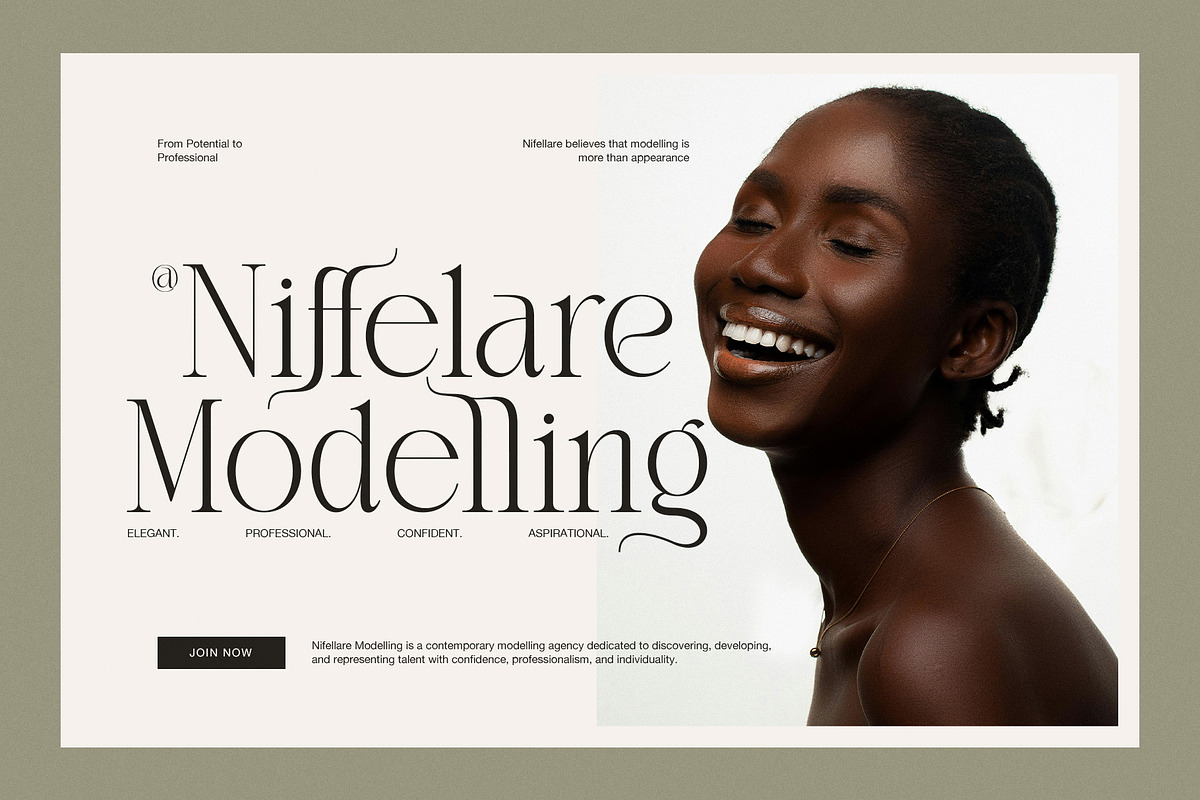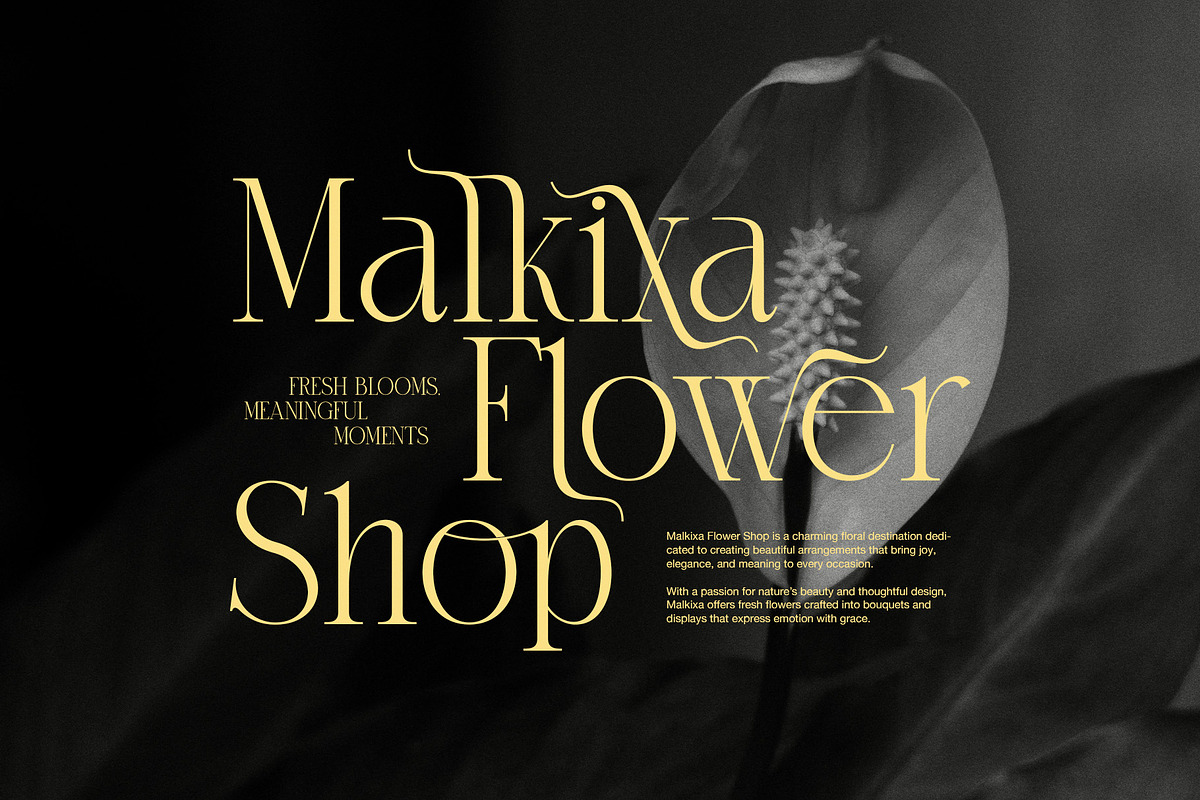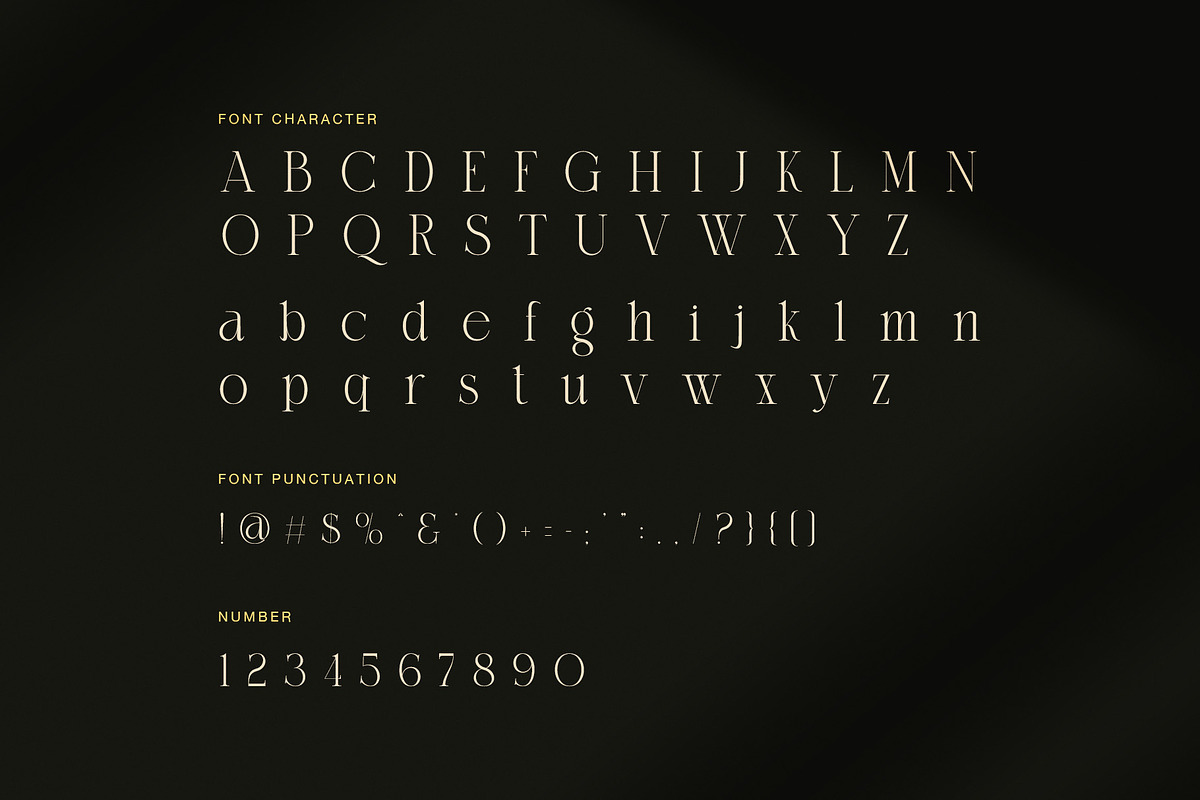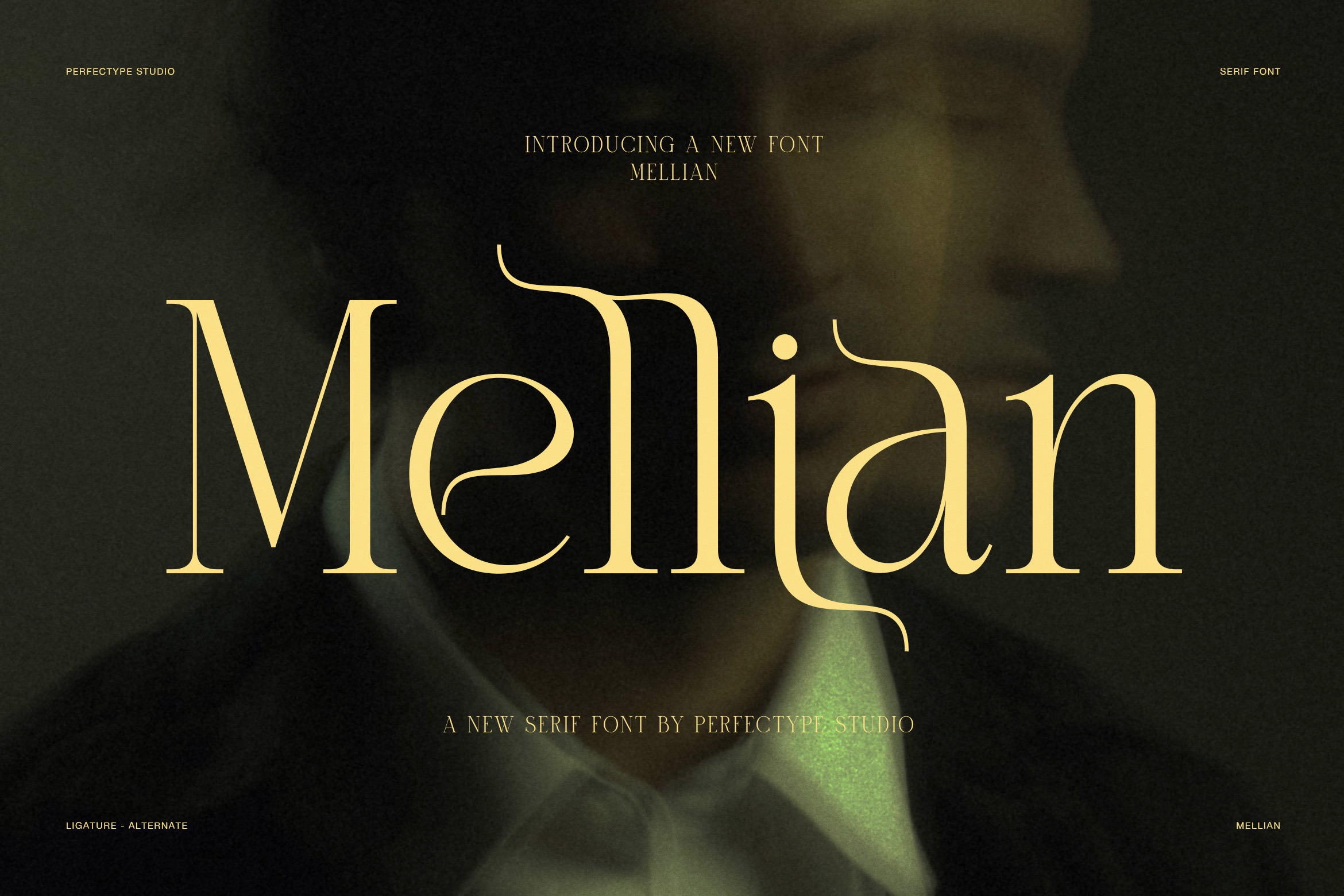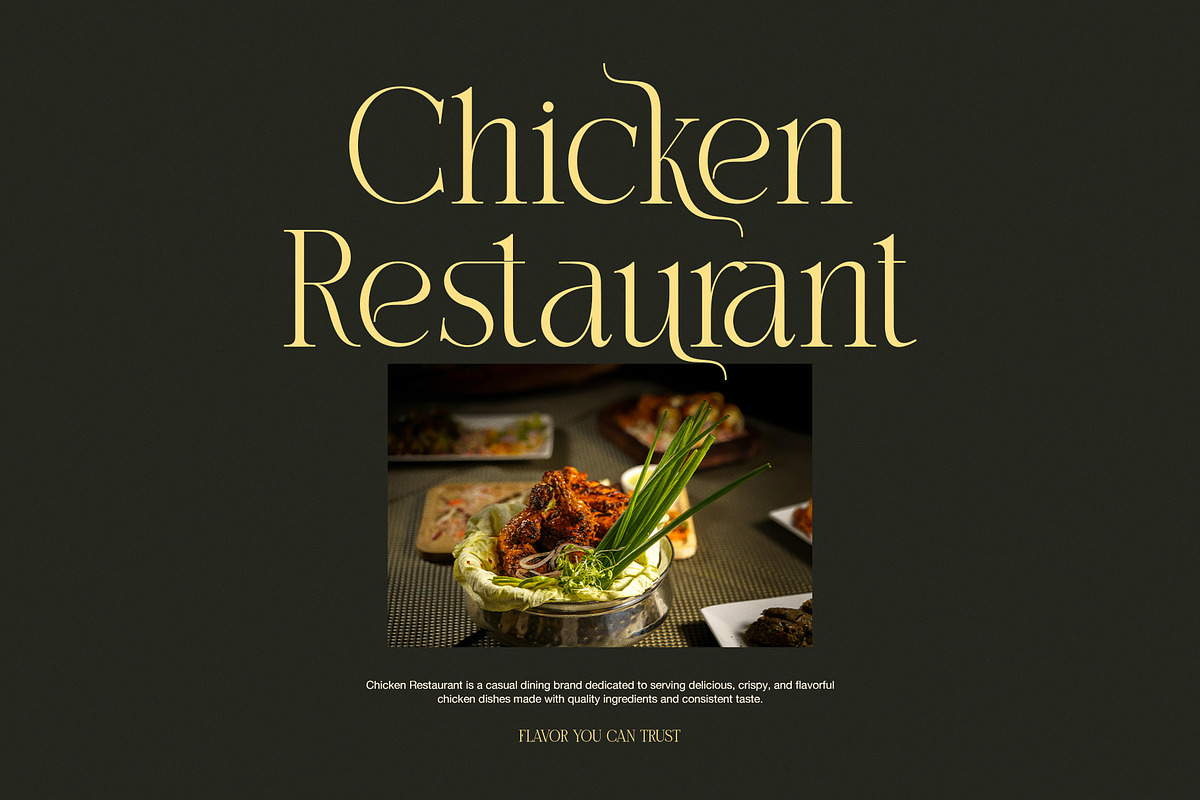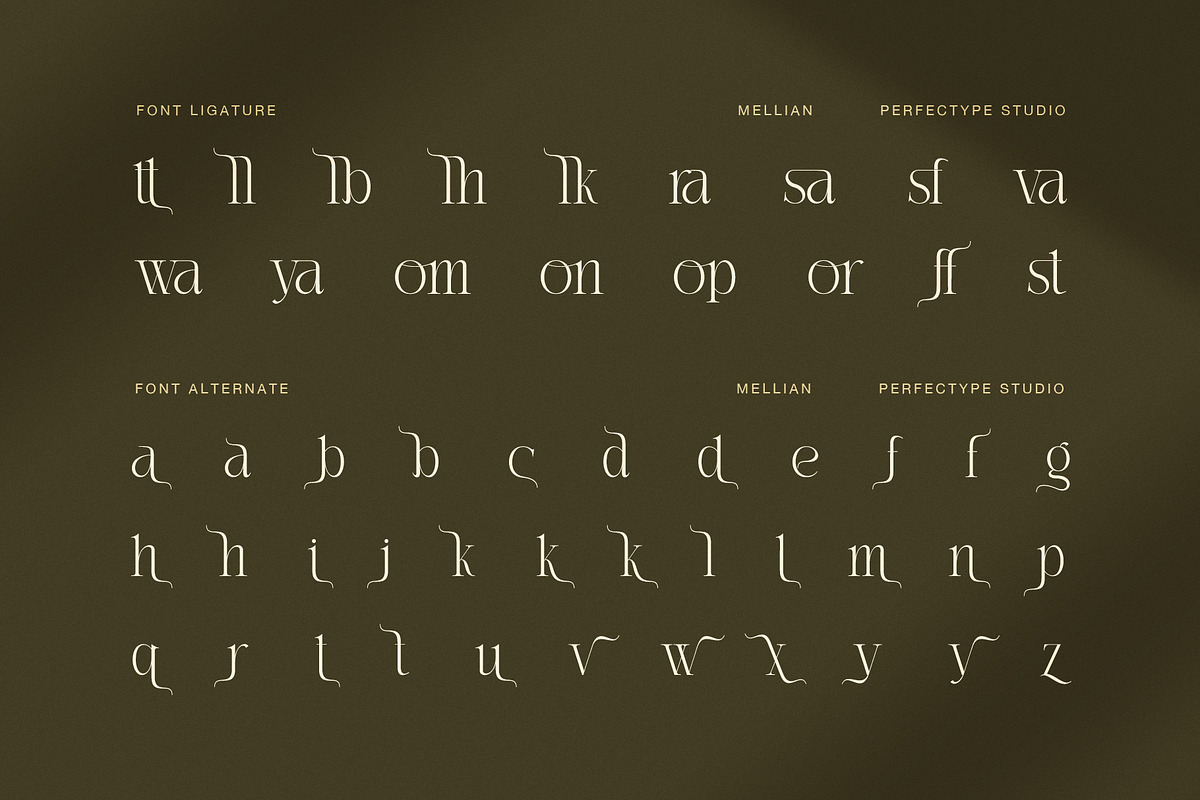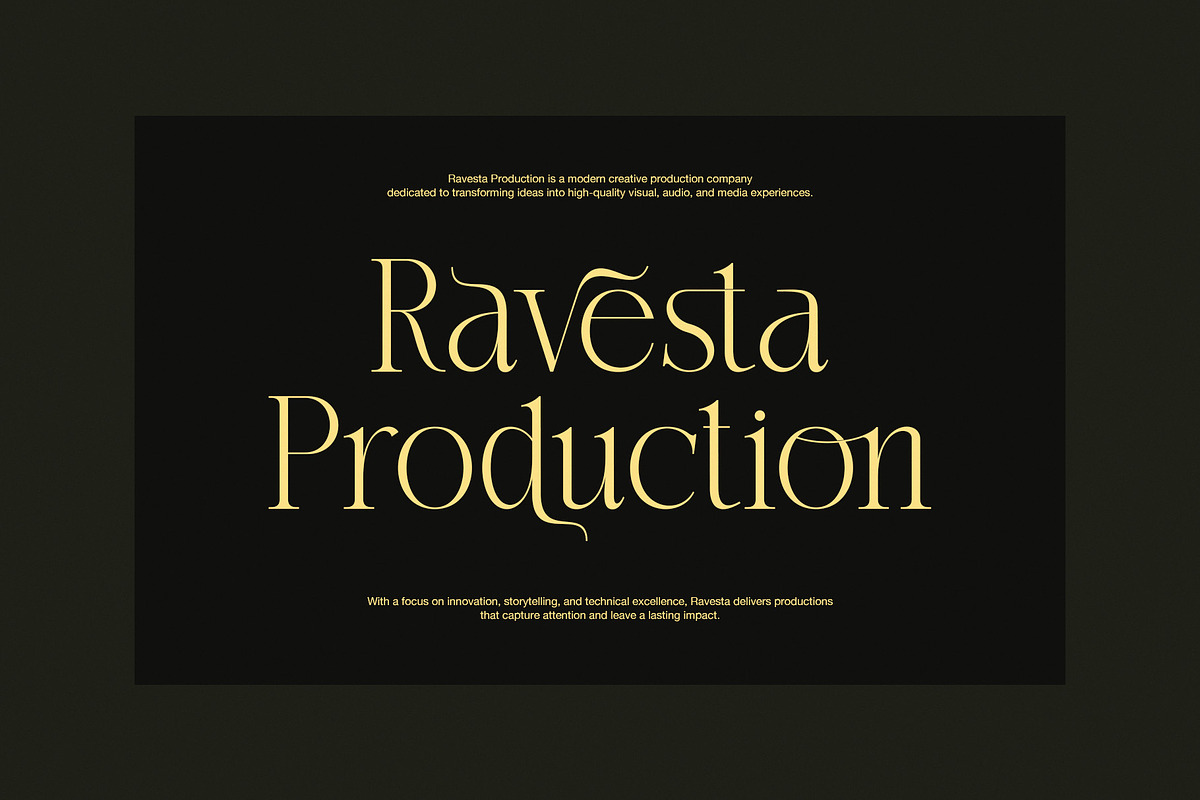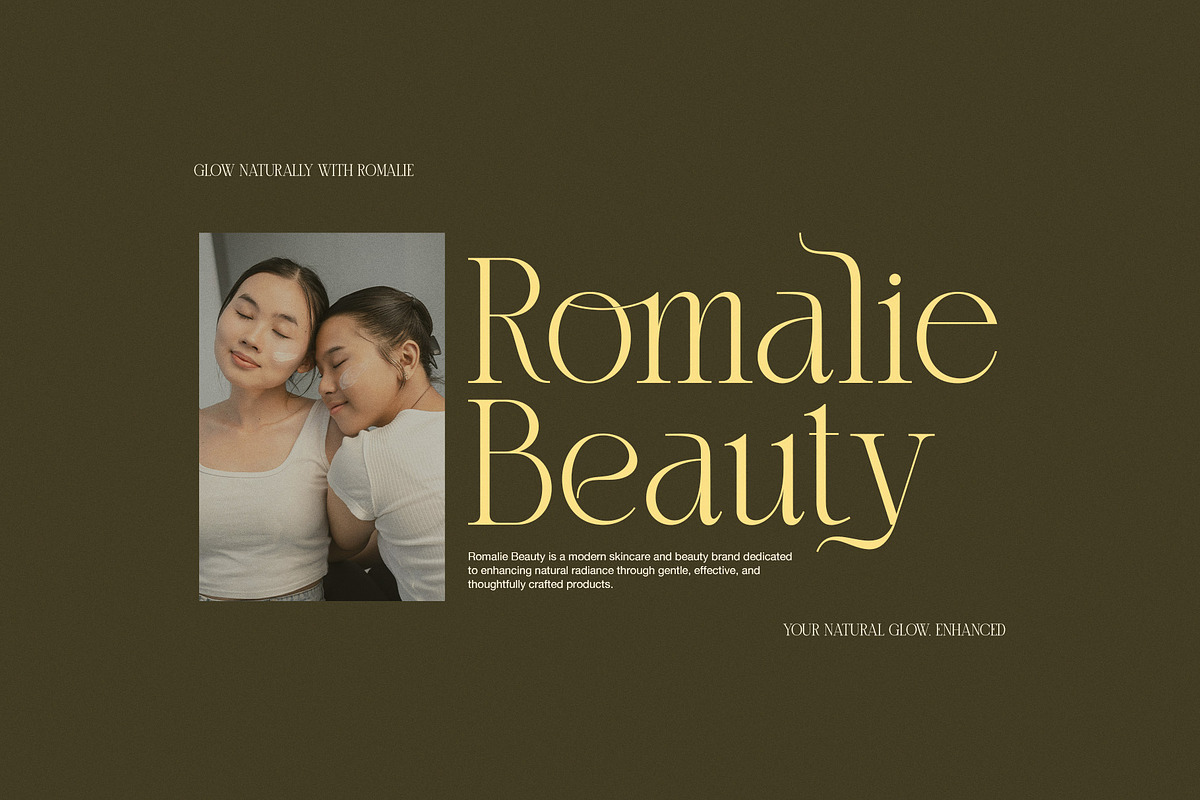
Mellian – Elegant Serif Font
Mellian is an elegant ligature serif font made for designers who want a refined look with a strong sense of style. Its high contrast, thin hairlines, smooth curves, and fine serif details create a graceful display face. At the same time, its long flowing terminals add a fresh and artistic touch.
Mellian has a fashion-led feel that works especially well in large type. Therefore, it can give logos, titles, and brand names a polished finish. The letters have slim strokes and strong vertical lines, so each word feels clean while still having a rich visual character. In addition, the curved details bring a soft rhythm to the overall design.
One of Mellian’s main strengths is its set of ligatures. These special letter pairs connect forms in a smooth way, creating a custom look without extra design work. Moreover, the font includes alternate lowercase letters. As a result, you can change key letter shapes and build a more personal style. This makes Mellian useful when a simple word needs a more unique look.
Elegant high-contrast serif design
Stylish ligatures for custom lettering
Alternate lowercase characters
Uppercase and lowercase letters
Numbers and useful punctuation
Fine hairlines and bold vertical strokes
Flowing terminals with a fashion feel
Strong display impact at large sizes
Great for print and digital projects
Because of its graceful shape, Mellian suits many creative uses. For example, use it for fashion logos, beauty brands, skincare packaging, jewelry labels, hotel identities, wedding stationery, magazine covers, and luxury campaigns. It also works well for posters, product names, social media graphics, menus, and website headers.
Furthermore, Mellian can help a brand look more polished without making the layout feel busy. Its high contrast adds drama, while the fine curves keep the design light. Meanwhile, the ligatures and alternate letters give you room to explore different word shapes.
Whether you are creating a premium logo or a striking editorial headline, Mellian gives your typography a clear and elegant voice. Therefore, it is a strong choice for designers who want a modern serif with classic charm and expressive details. Choose Mellian when you need an elegant ligature serif font that feels stylish, memorable, and ready for premium design work.